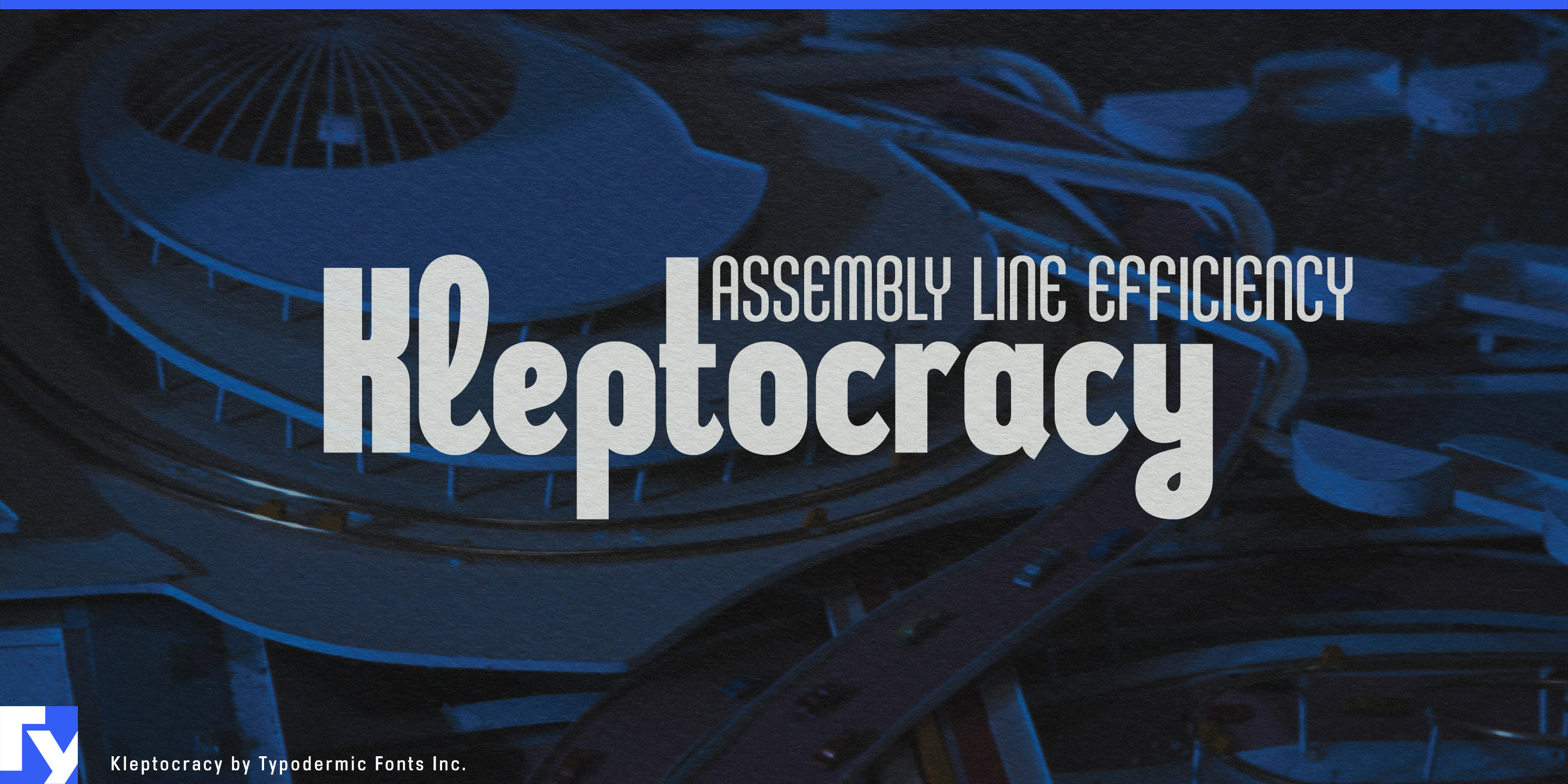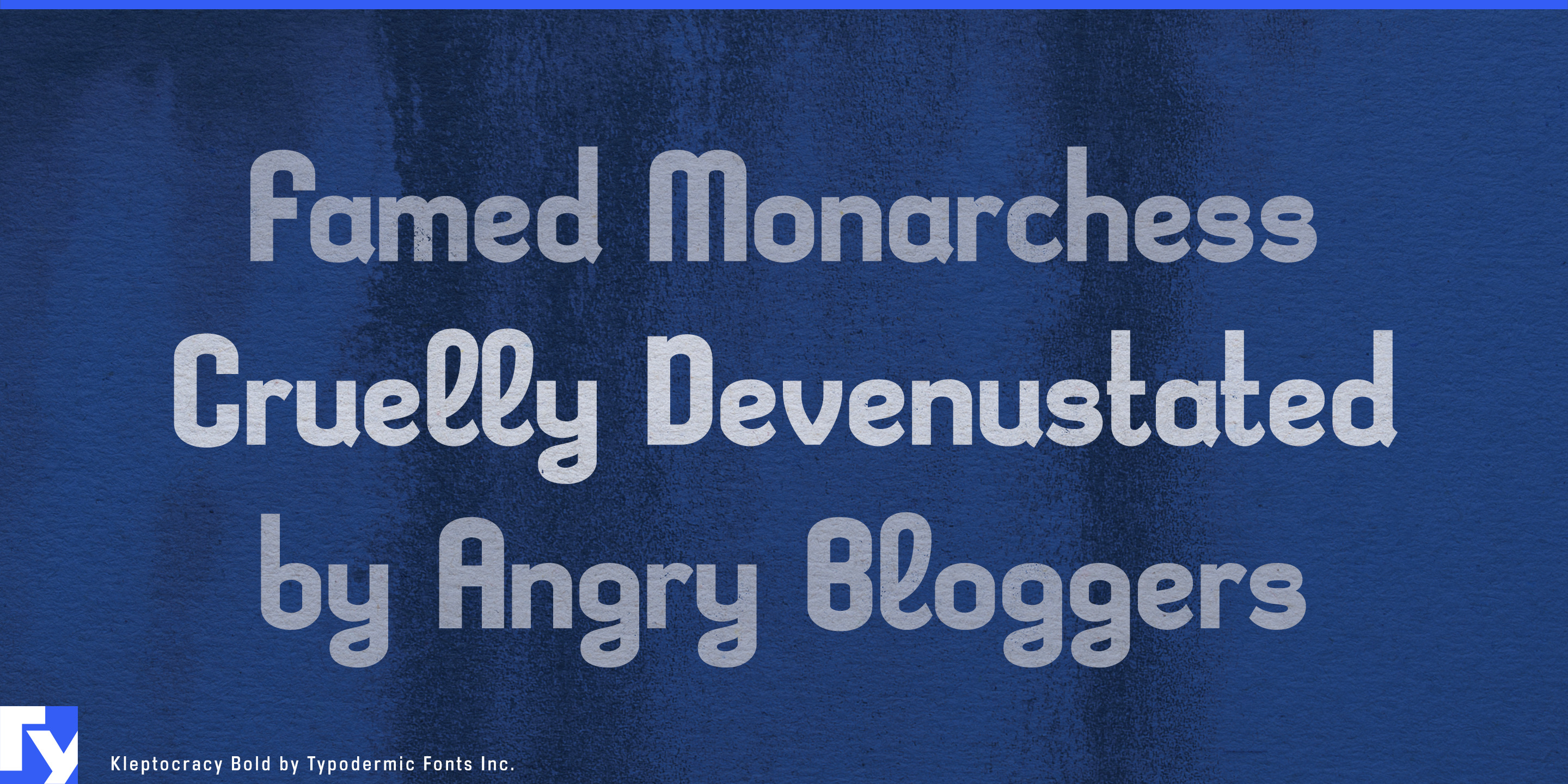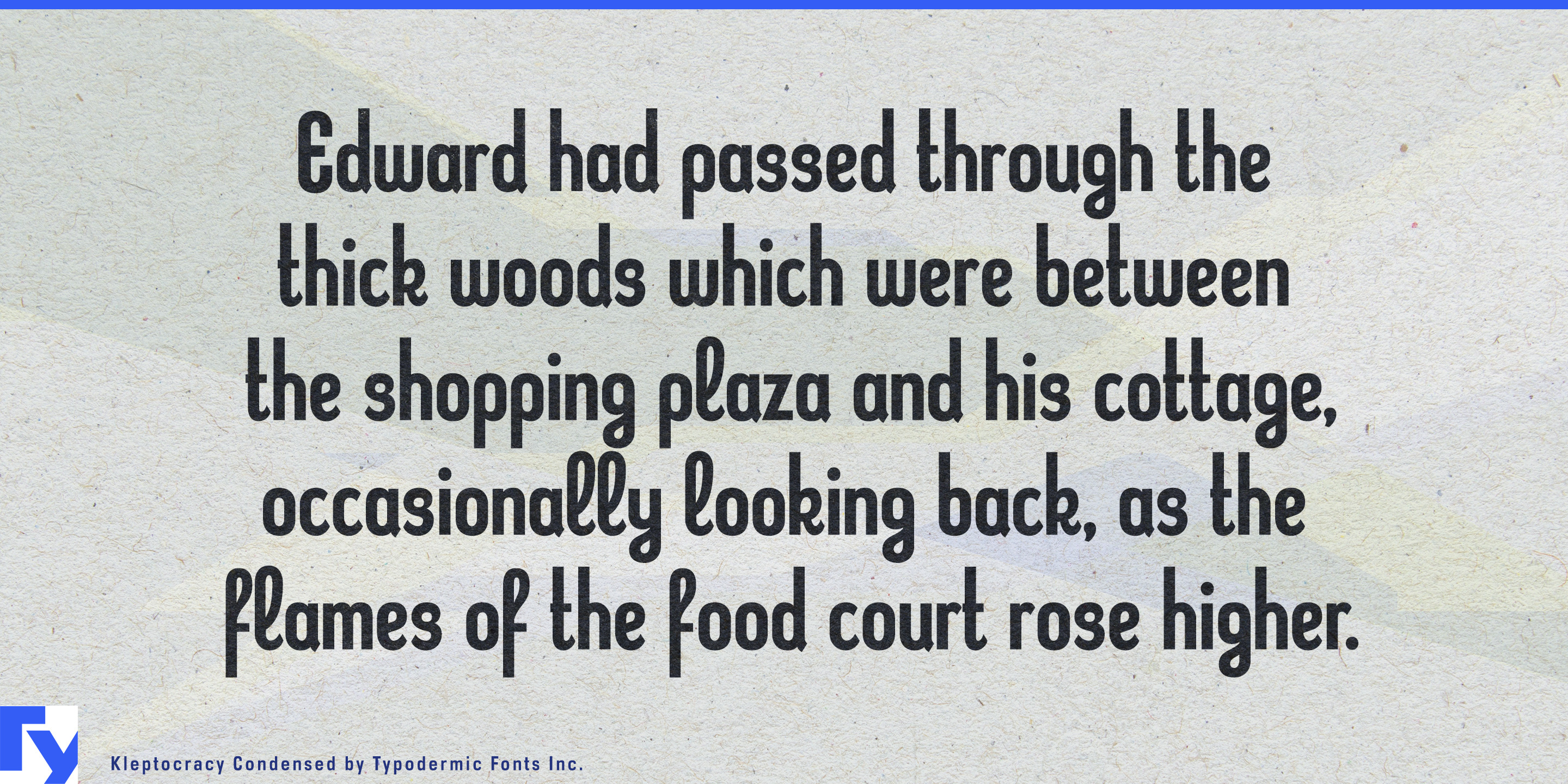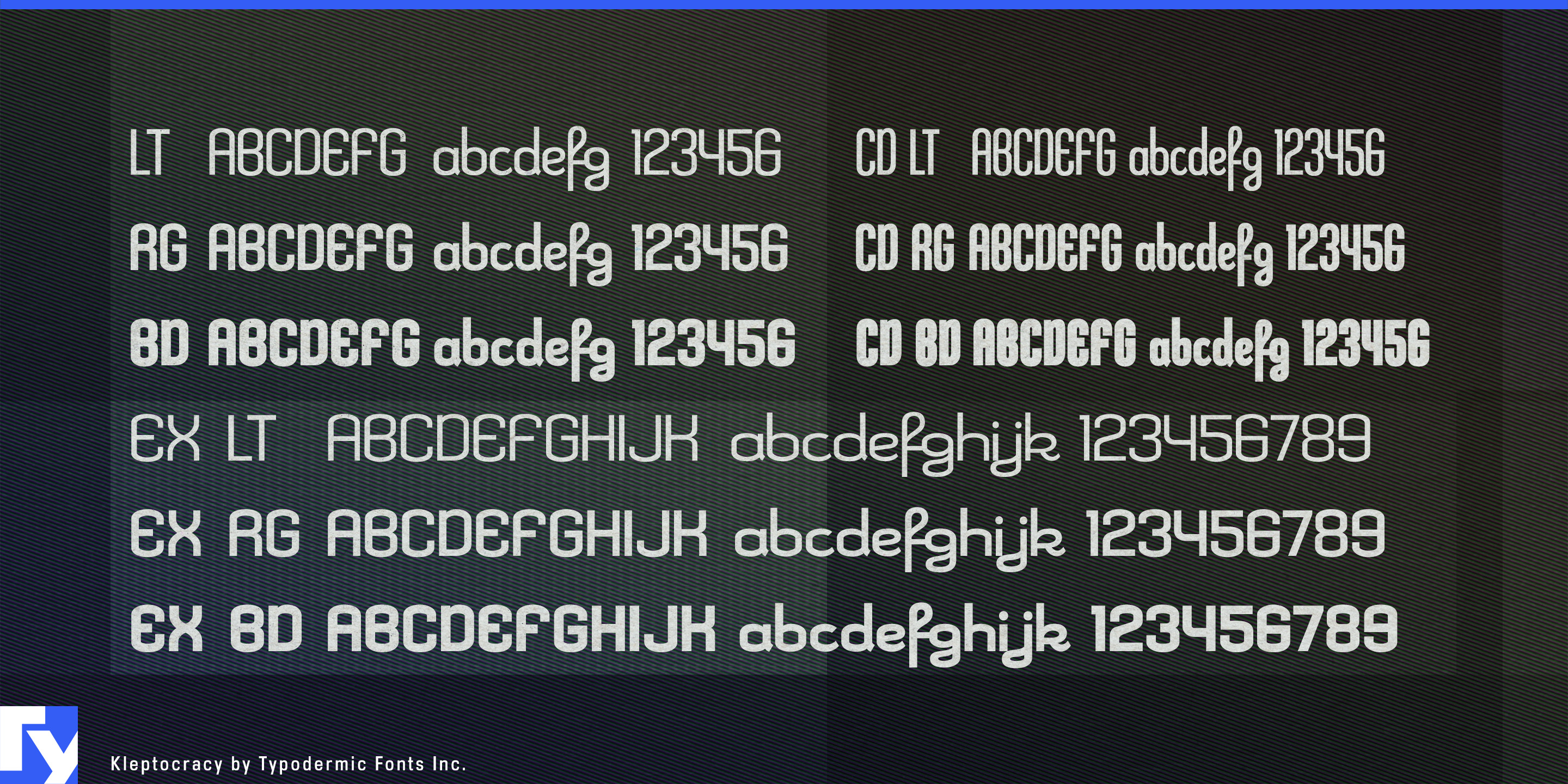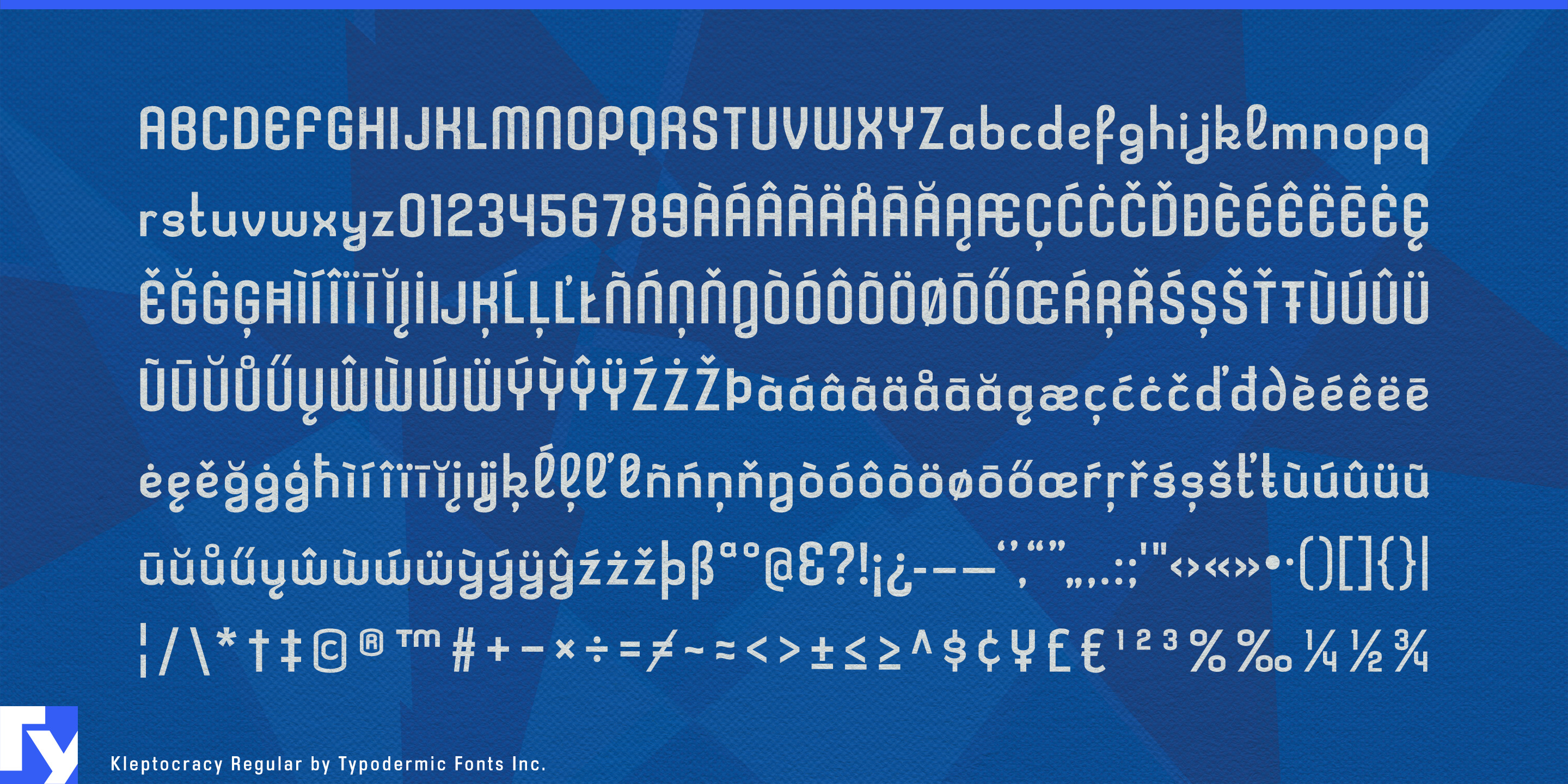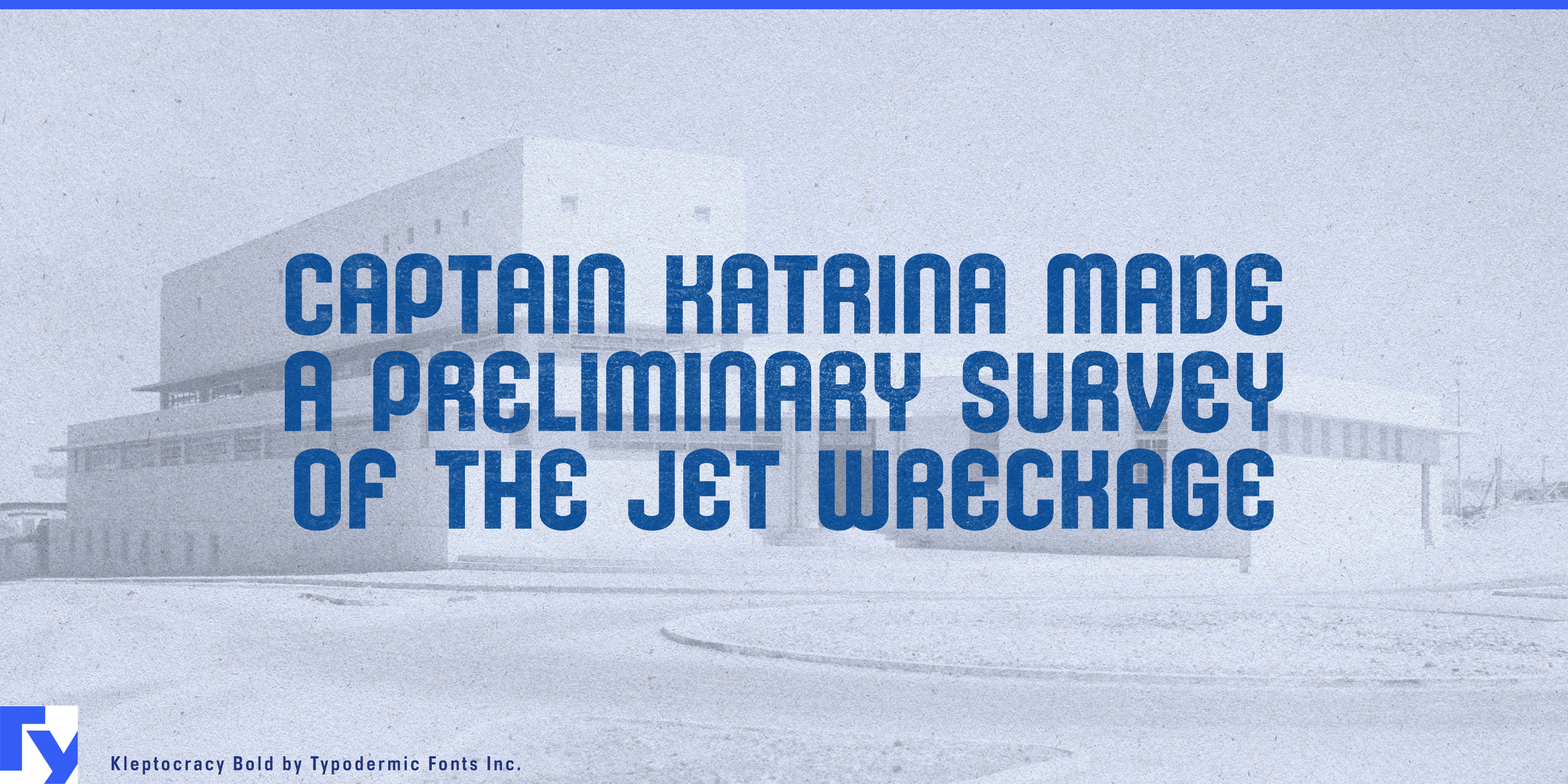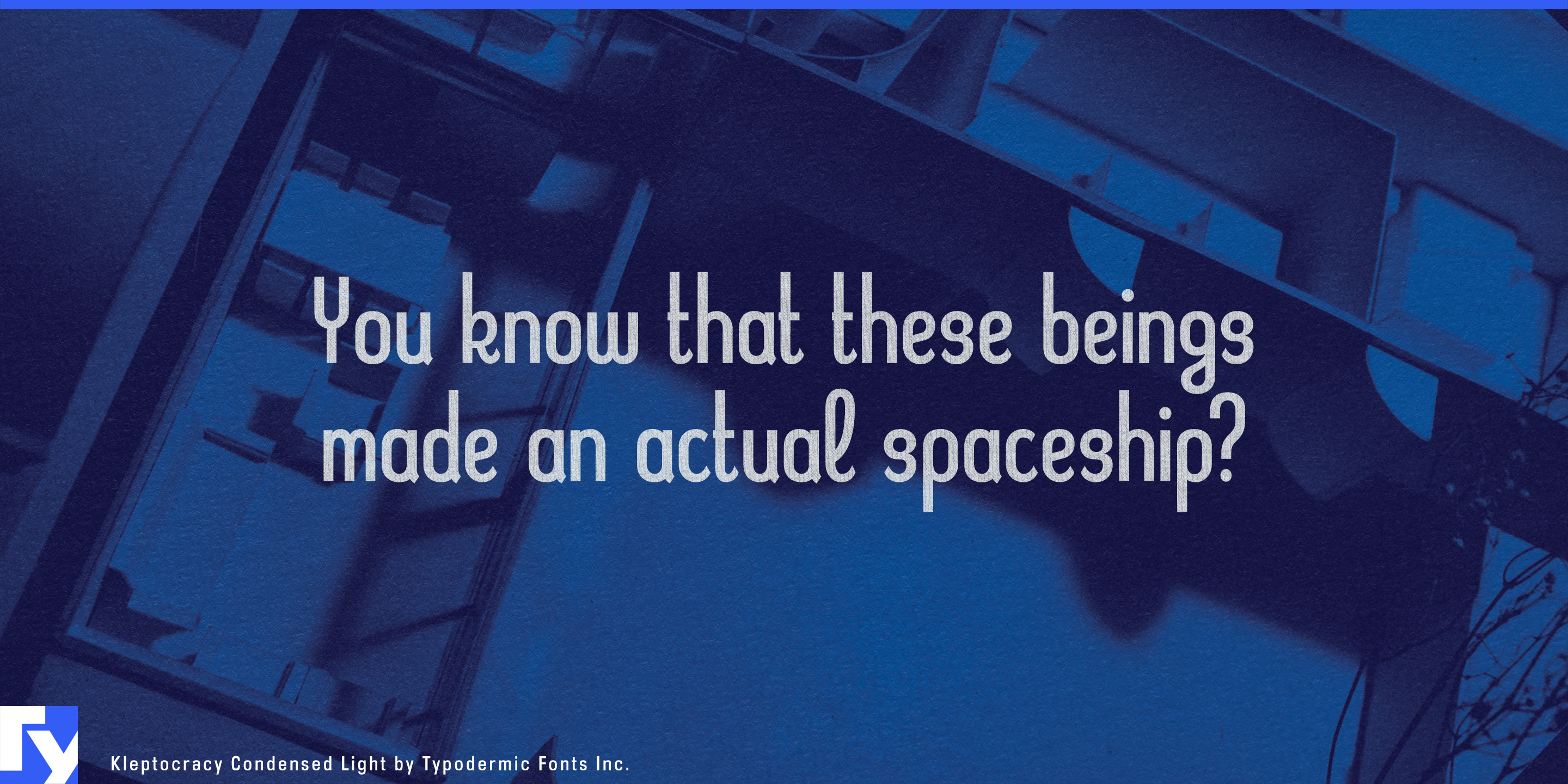
Kleptocracy
Late-1990s digital typography is easy to reduce to a few familiar signals: chrome, pixels, rave graphics, stretched techno lettering, and Y2K nostalgia. Kleptocracy comes from a stranger part of that period. Its condensed geometry, Art Deco compression, and unexpected cursive details create a digital postmodernism that already felt slightly out of time when it was made. That quality now gives designers an alternative to contemporary imitations of the era.
Kleptocracy is especially suited to cultural projects dealing with technology, media, and design history. Digital-art exhibitions, new-media festivals, design biennials, architecture shows, and programs about obsolete technology, early internet culture, surveillance, AI authorship, or digital archaeology can use it for exhibition titles, artist names, schedules, gallery graphics, catalogue covers, screening programs, and merchandise.
Music and nightlife provide another strong setting. Experimental pop, electronic labels, art rock, left-field dance music, listening bars, club series, and design-led festivals can use Kleptocracy for artist names, lineups, release graphics, event identities, venue graphics, and merchandise. It carries late-digital character without defaulting to the standard rave-font vocabulary.
Experimental fashion, eyewear, accessories, and period-referencing collections can use the same ambiguity for capsule names, runway graphics, fashion films, lookbooks, invitations, window displays, hangtags, and model names. Film, streaming, documentary, and game production can extend it into title cards, fictional companies, nightclub graphics, magazine covers, storefronts, and promotional material for dot-com dramas, financial thrillers, corporate satires, early-internet documentaries, and retrofuturist settings viewed through a 1990s lens.
Kleptocracy also suits investigative media dealing with corporate corruption, oligarchs, financial scandals, privatization, and institutional dysfunction. Its mixture of bureaucratic severity and mannered detail works well for titles, episode cards, data-graphic headings, and fictional corporations that need to look polished, technological, and faintly suspect.
Across three widths, three weights, and italics, Kleptocracy turns its internal contradictions into a system. Compact capitals can look severe and industrial; looping lowercase forms interrupt that discipline; lighter expanded styles can become unexpectedly elegant. What once made Kleptocracy feel slightly obsolete now makes it useful as a genuine piece of late-1990s digital postmodernism.